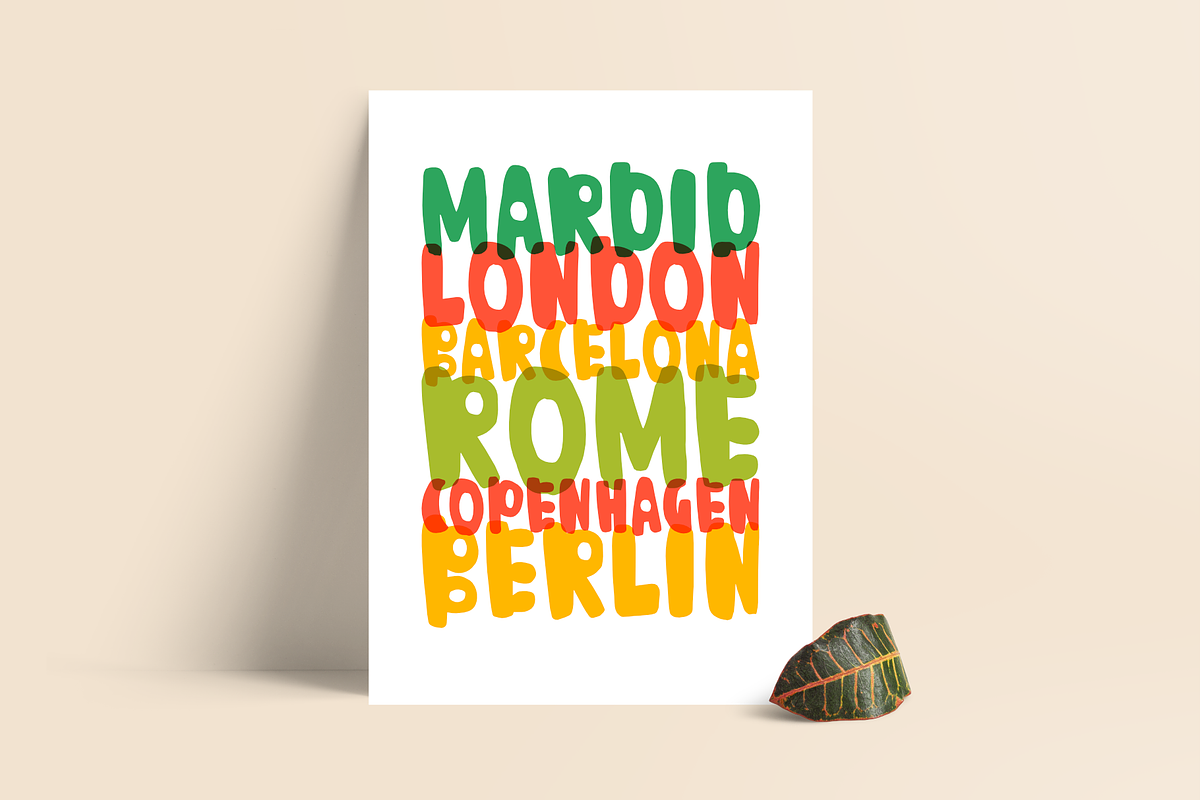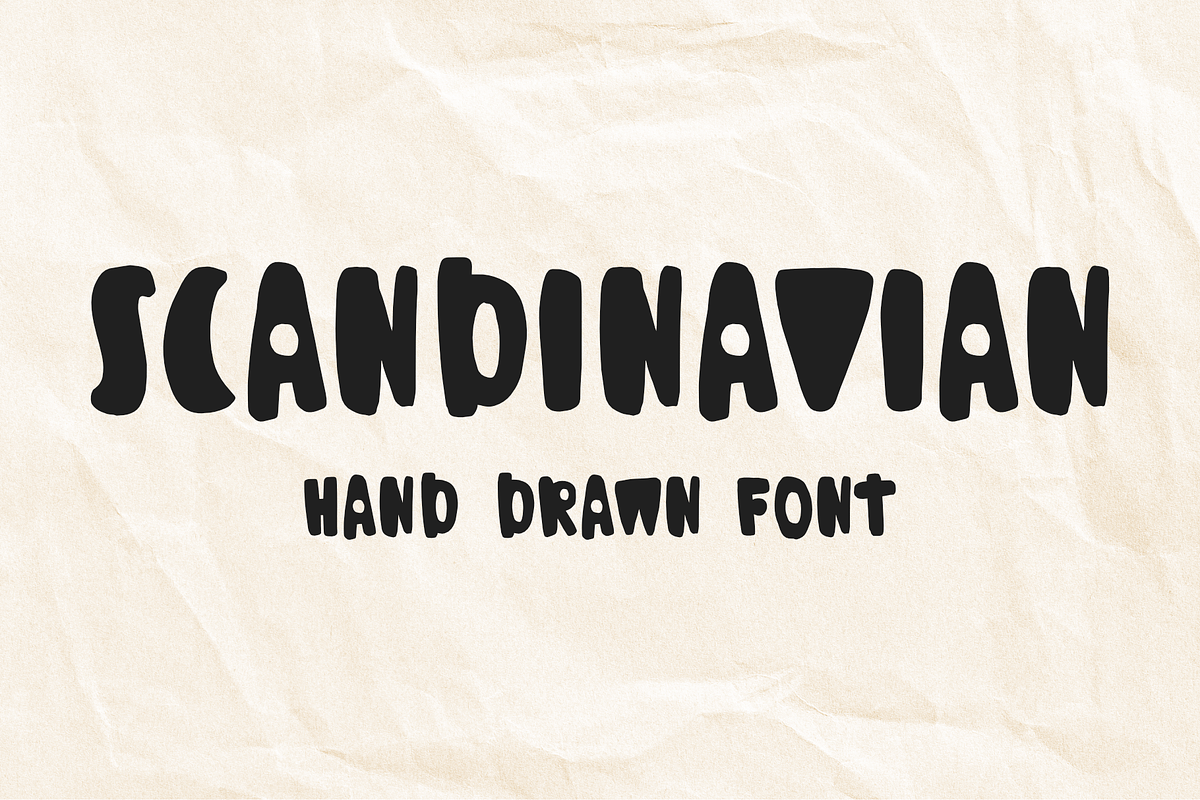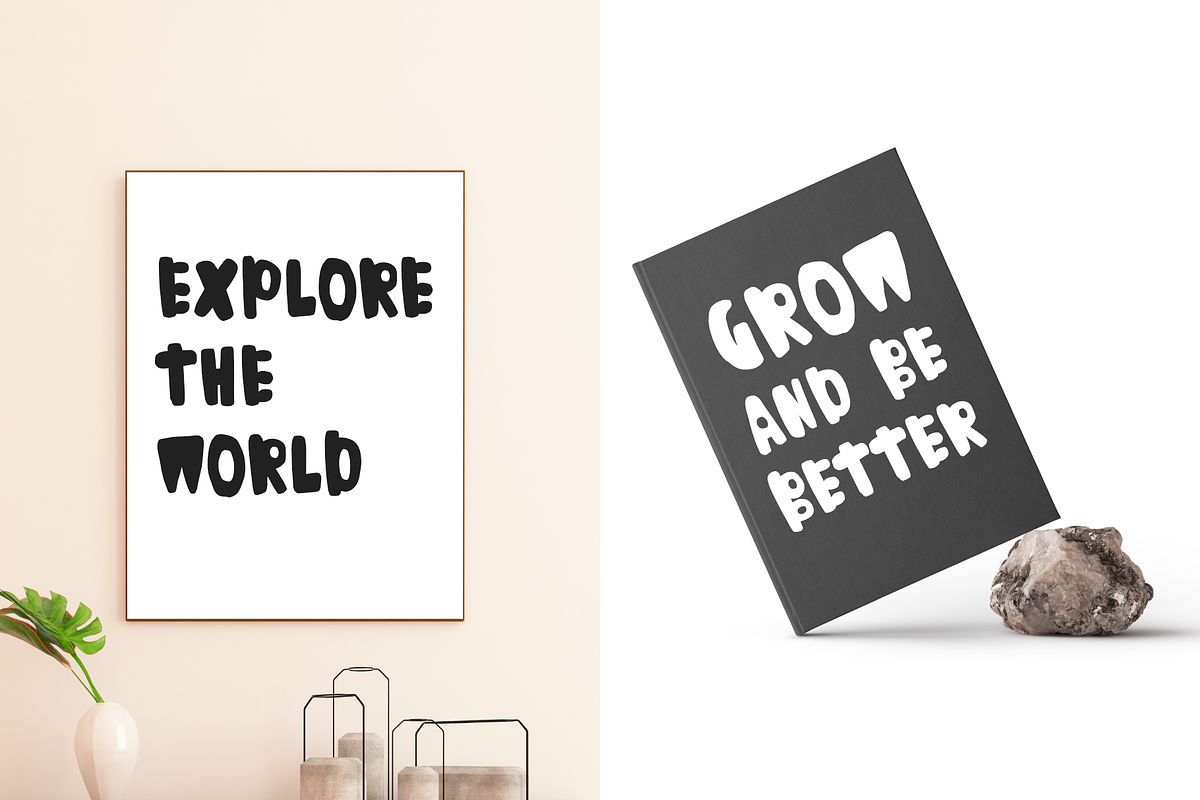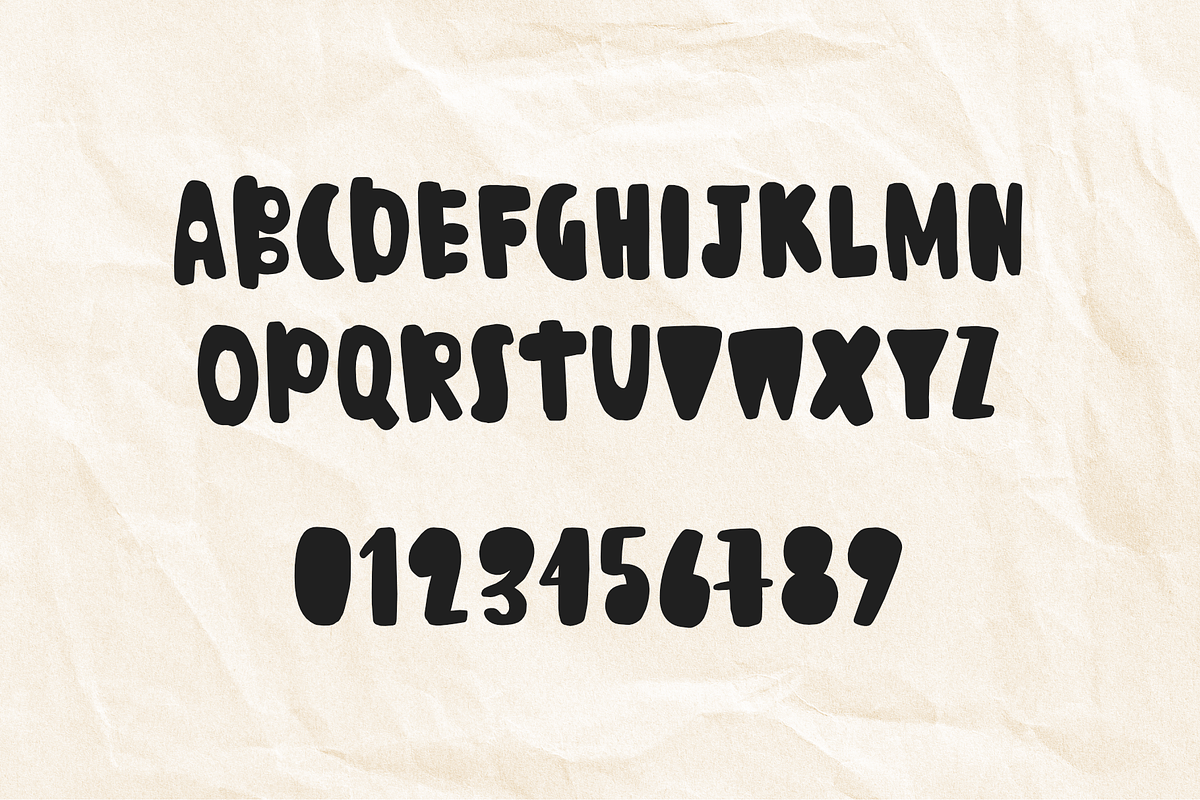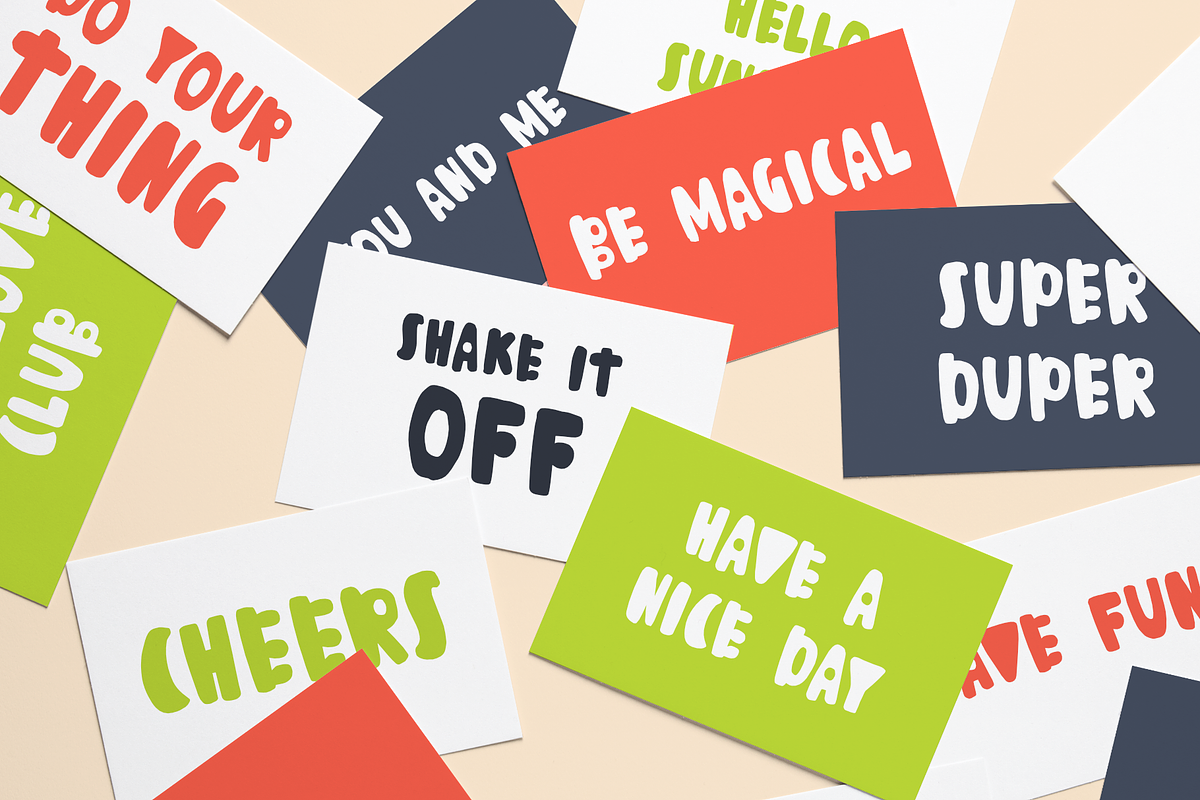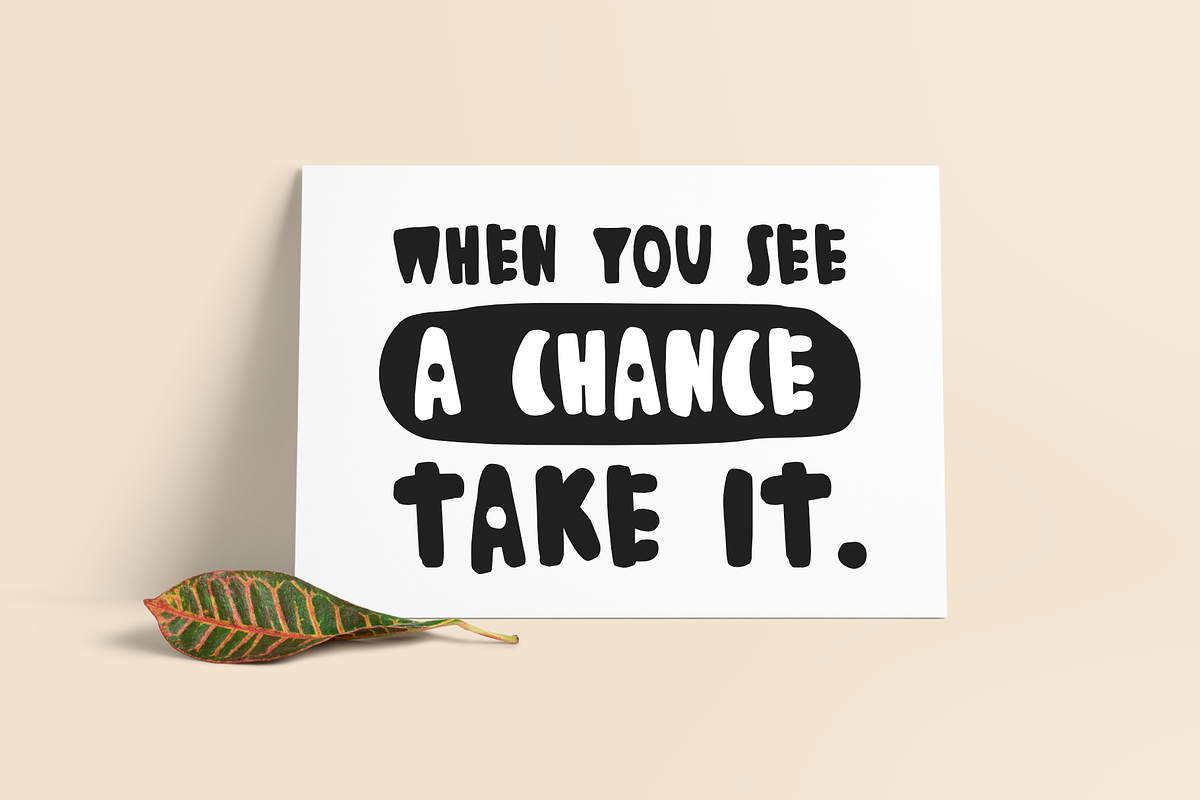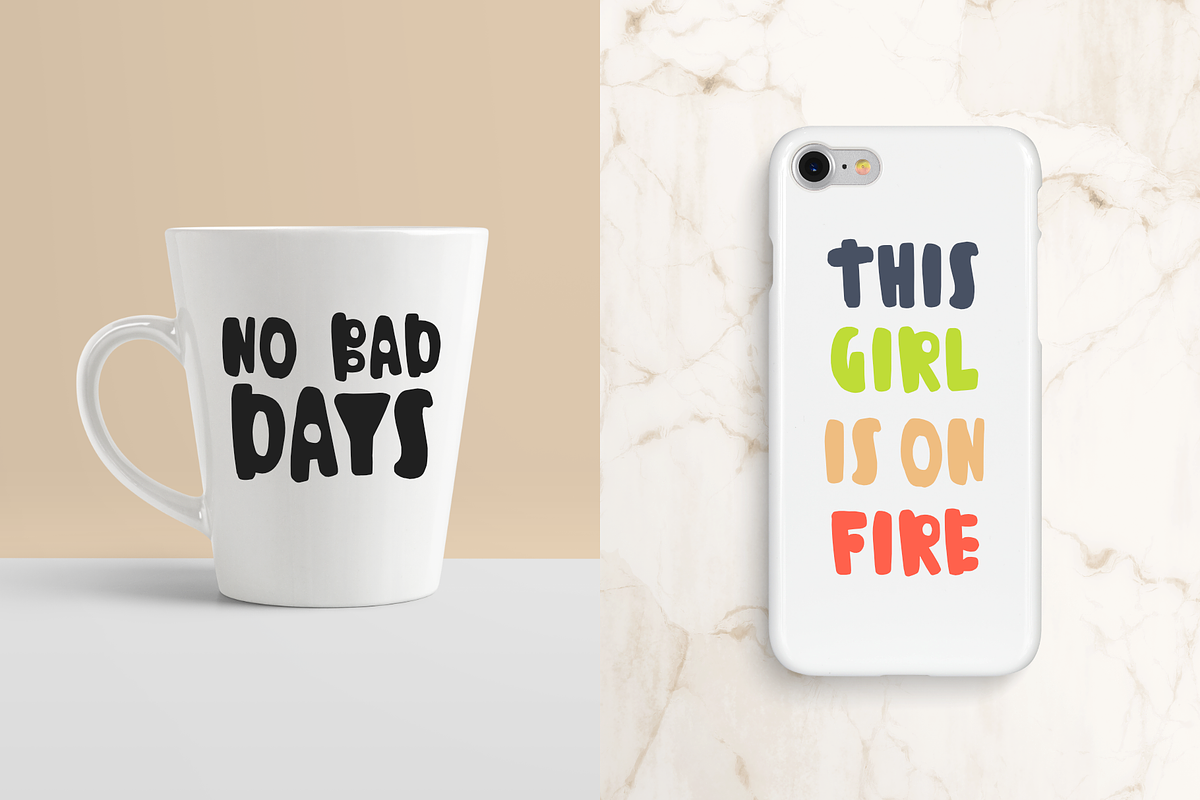
Scandinavian - hand drawn font
I am very glad to present my new font – Scandinavian. It is a hand drawn font, which consists capital letters and numbers. This font has its own character – playful, modern and a bit childish. It's perfect for any prints, logos, blogs etc.